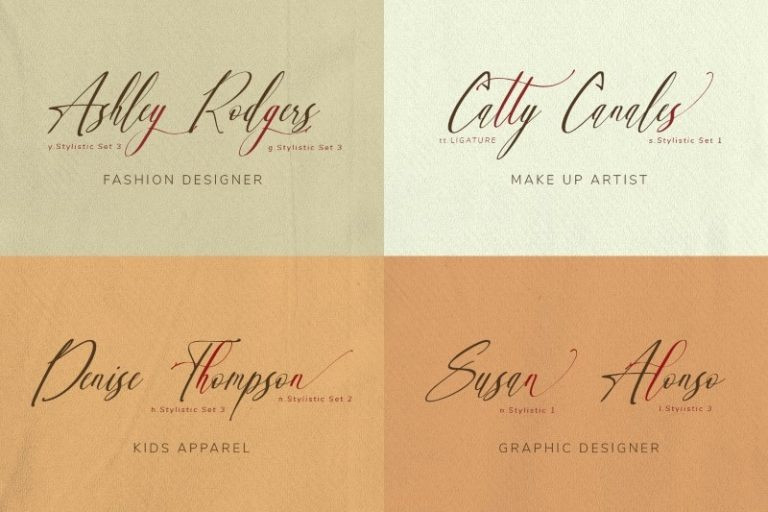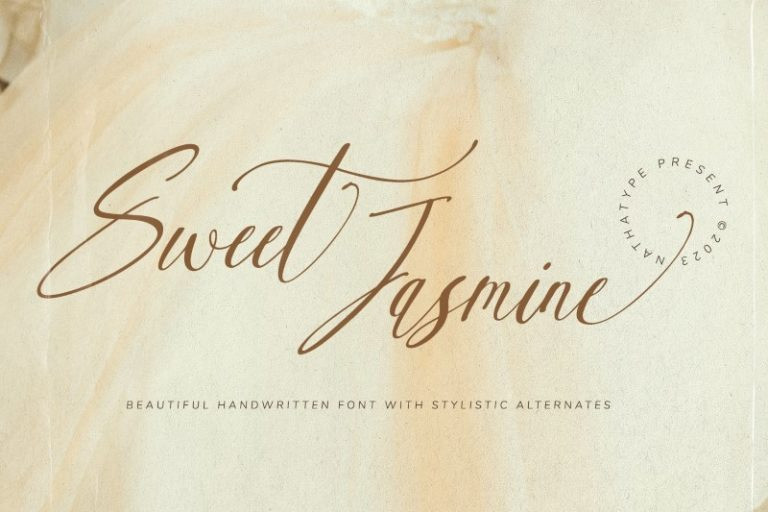
Sweet Jasmine Font
Sweet Jasmine Script Font is a handwriting-like script font created with mixing the natural handwriting elements with natural nuances to produce warm, flowing-looking designs. Its letters are interconnected in high contrasts, and it is suitable to apply for big text sizes because it has somewhat complicated font style details to ease the font to read. In addition, you can enjoy the available features here.